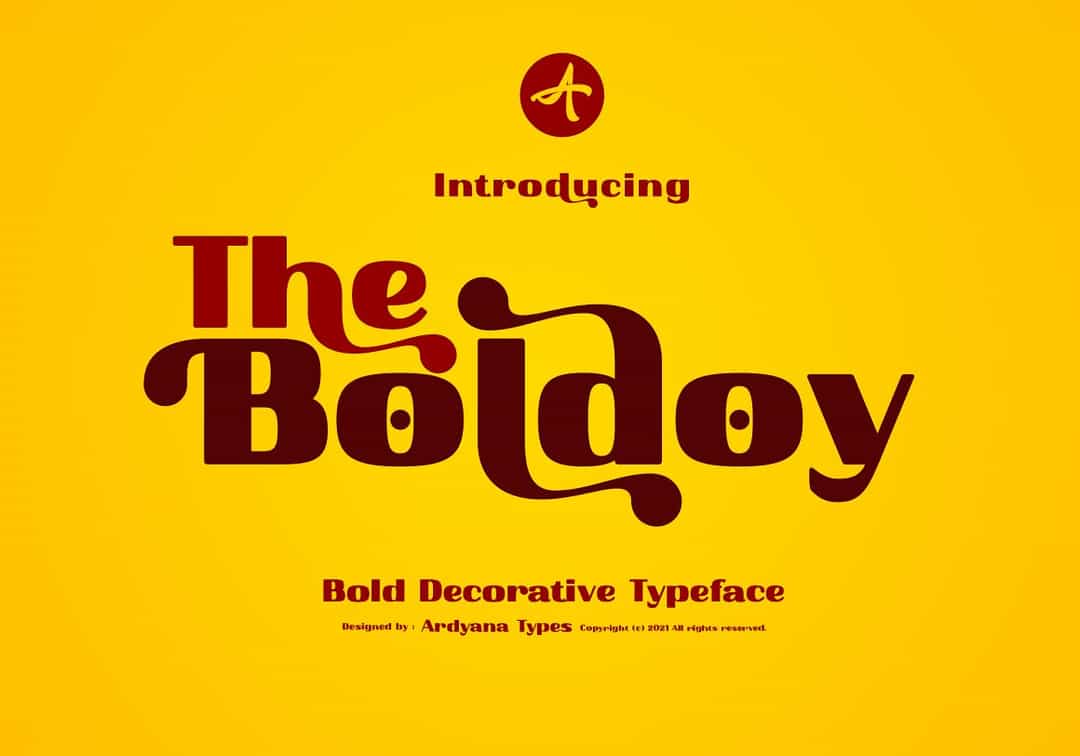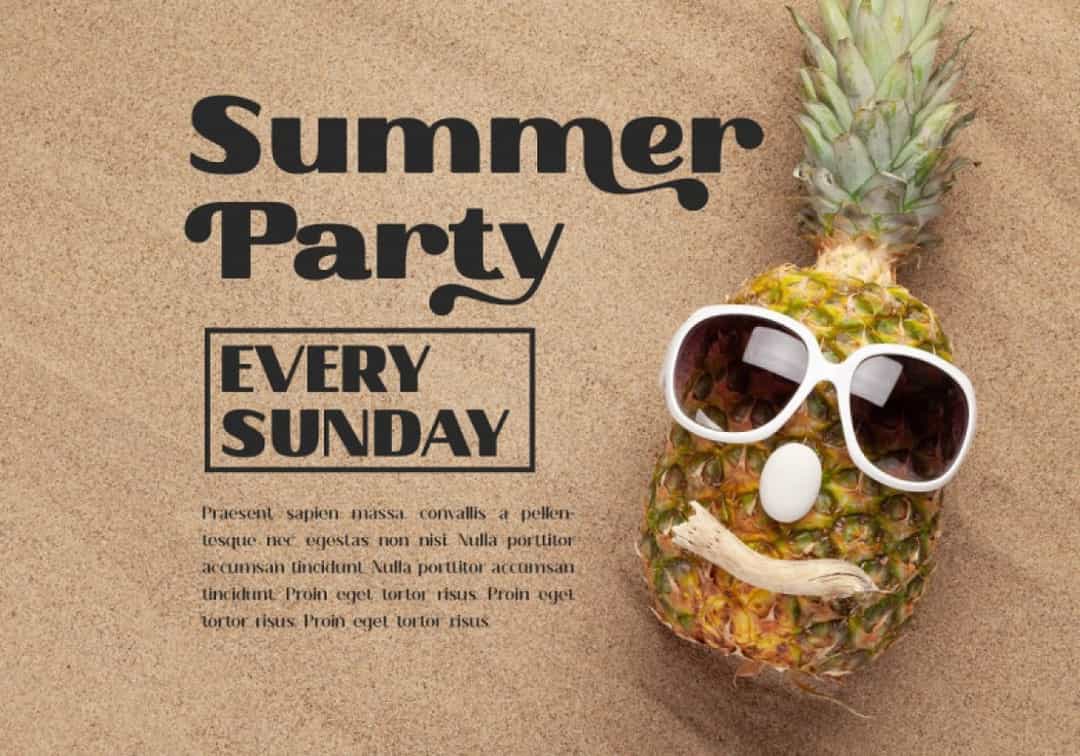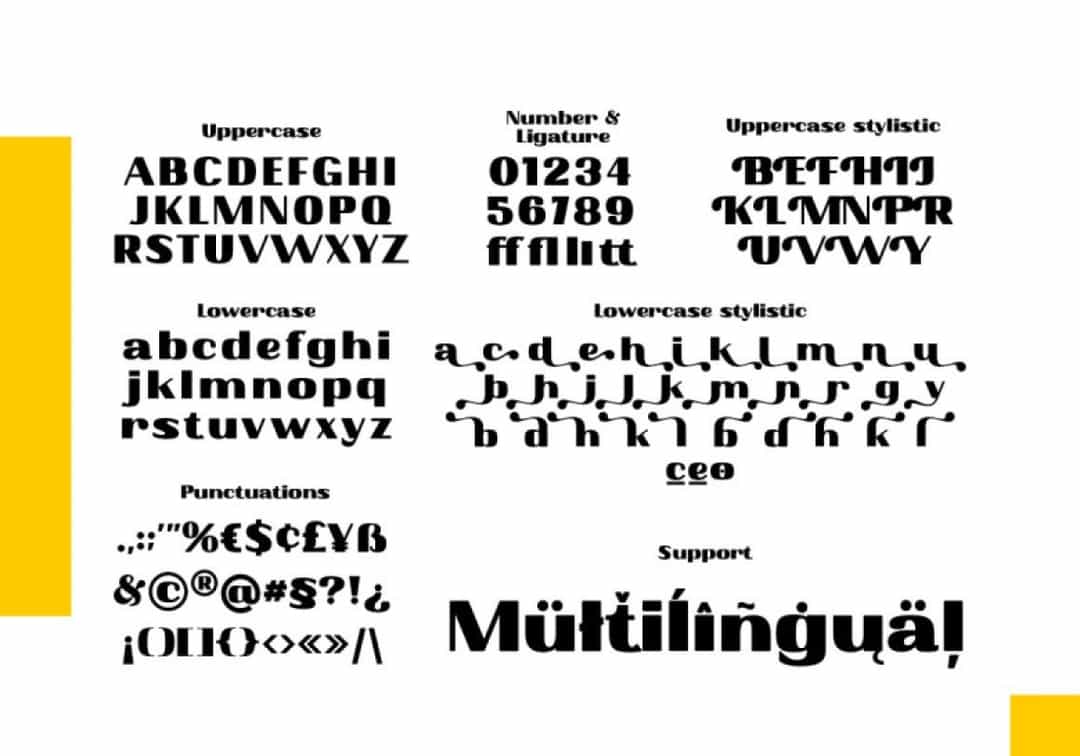
Boldoy Font is available for everyone to experience an attractive typeface with lively and energetic characteristics. When placed on the cover of your boom it will grab attention from all around; its vibrant shape will impress everyone with an adorable elephant that is ideal for summer fun! Big Boy Boldoy comes equipped with multiple alternative ligatures and alternates that help ensure your plan won’t run dry!